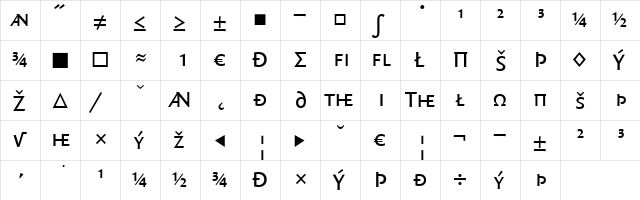
QuadraatSans Regular
Design Context for QuadraatSans Typeface
QuadraatSans offers clean, dependable letterforms without strong stylistic allegiance, making it a practical choice for designers who need flexibility.